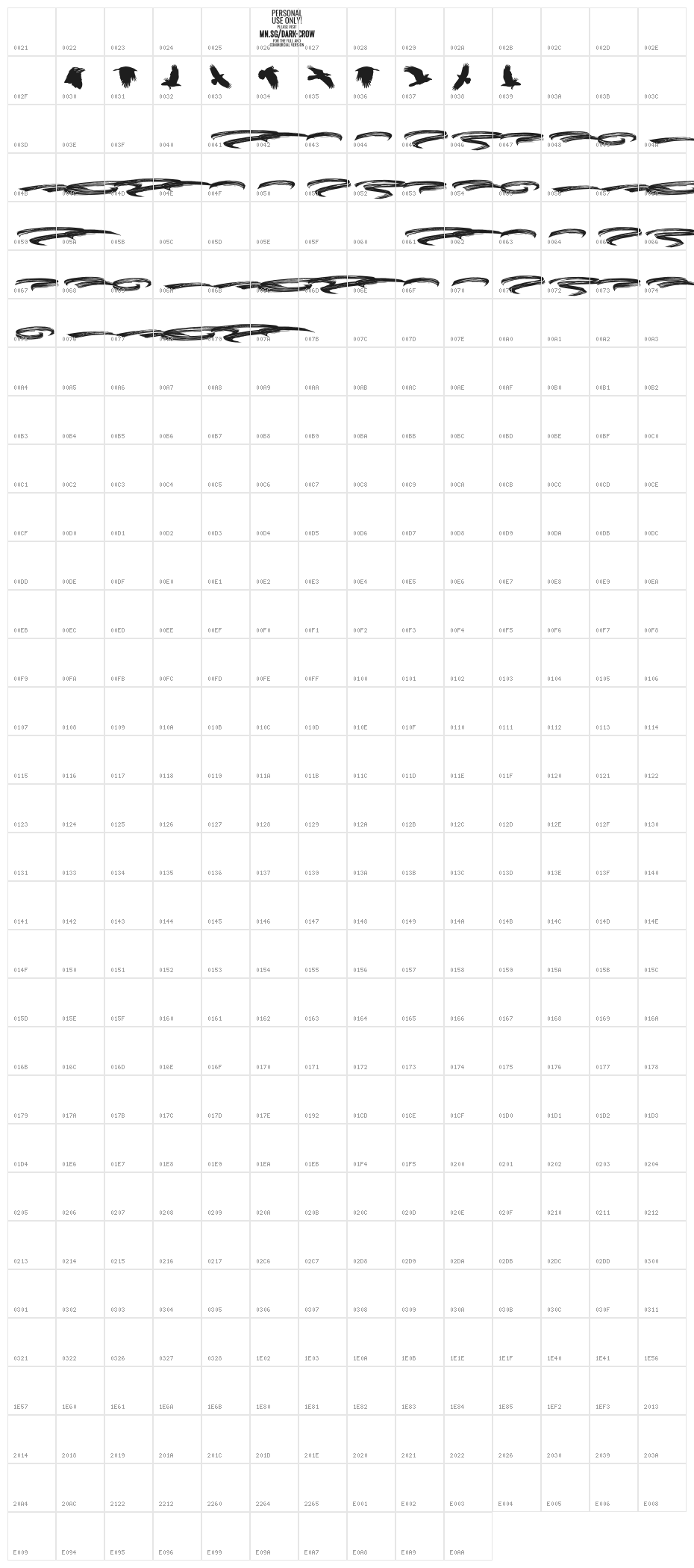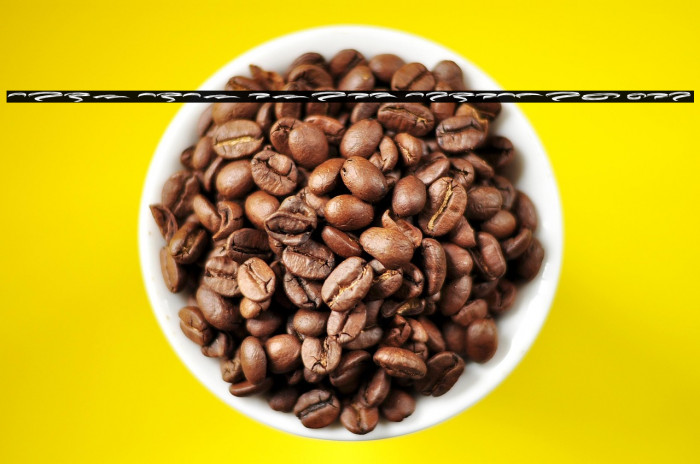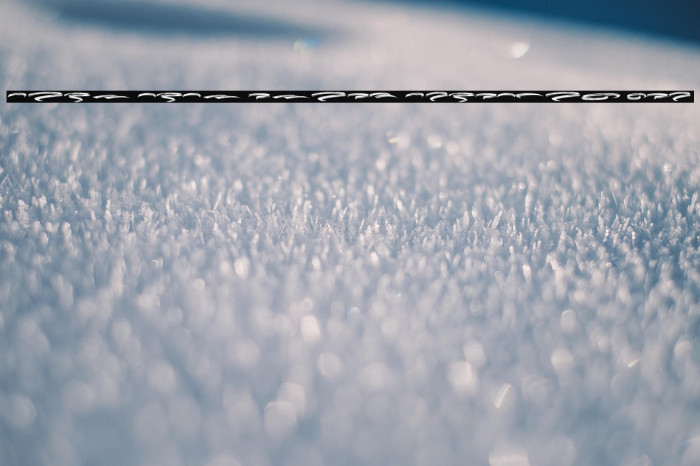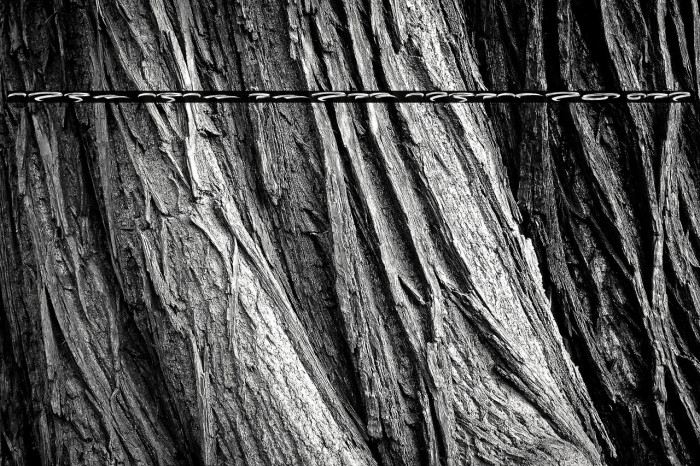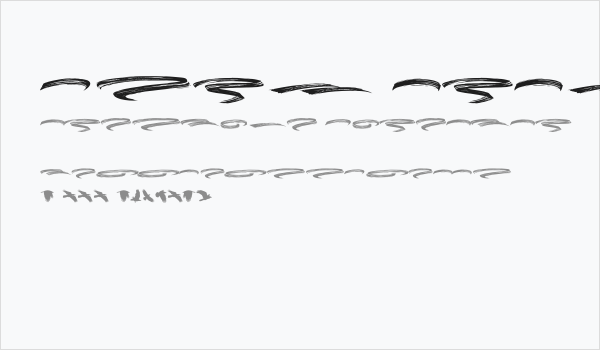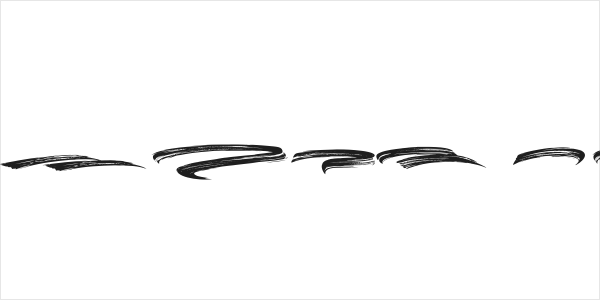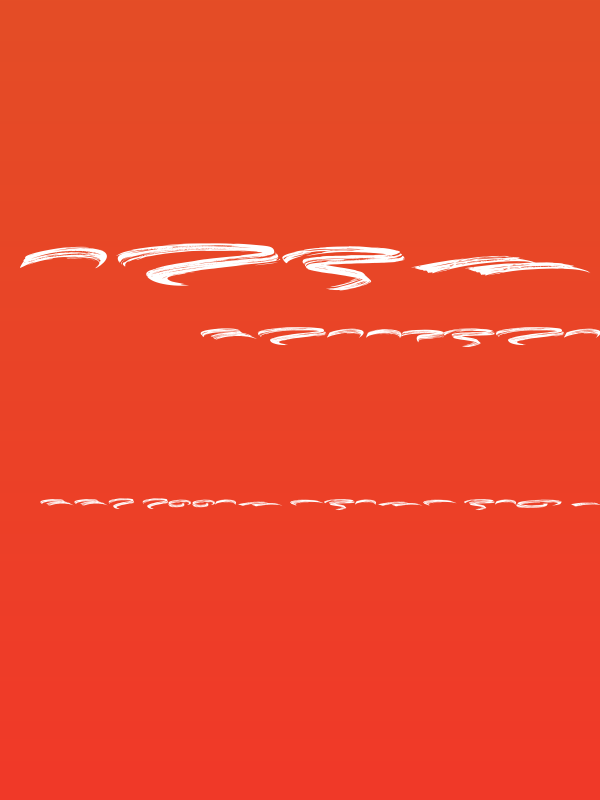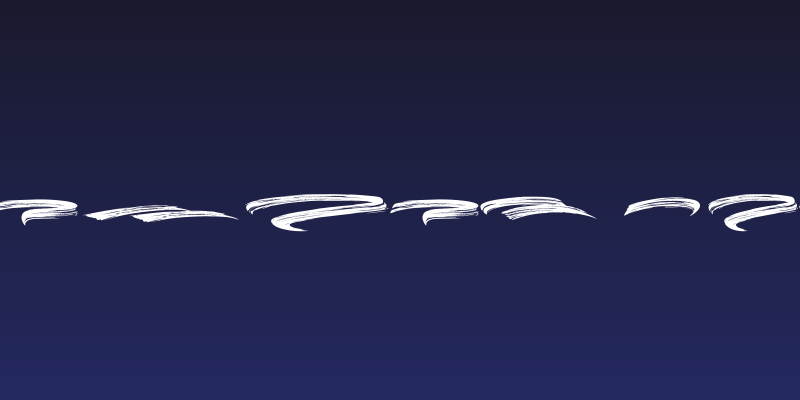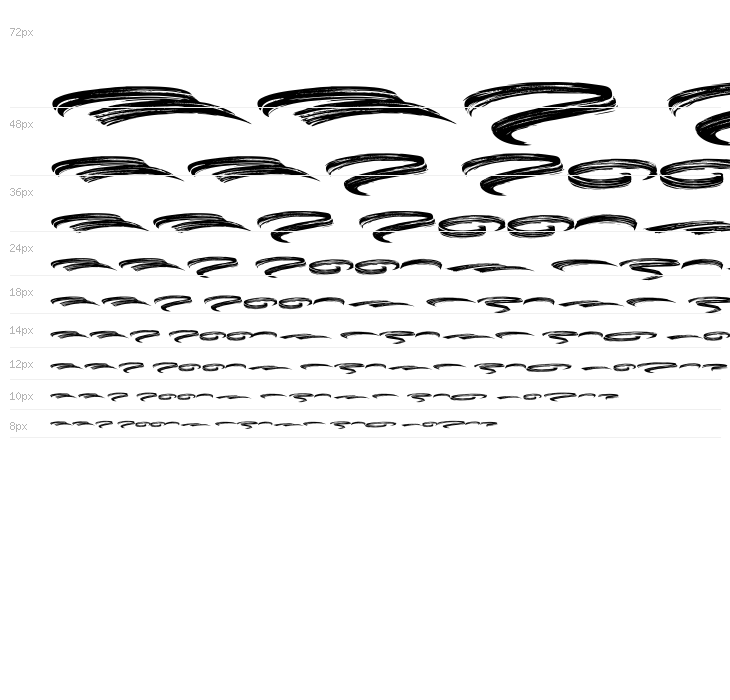
This font features a unique and artistic style, characterized by elongated, flowing swashes that mimic the graceful movement of a crow in flight. The letters are highly decorative, with intricate curves and flourishes that give them a dynamic and whimsical appearance. The design is reminiscent of calligraphy, with a modern twist that makes it suitable for creative and expressive projects. The font's distinct style is ideal for capturing attention and adding a touch of elegance and mystery to any design.
| Use Case | Headlines, Logos, Artistic projects |
| Proposed Projects | Ideal for invitations, posters, branding, and any project requiring a touch of elegance and creativity. |